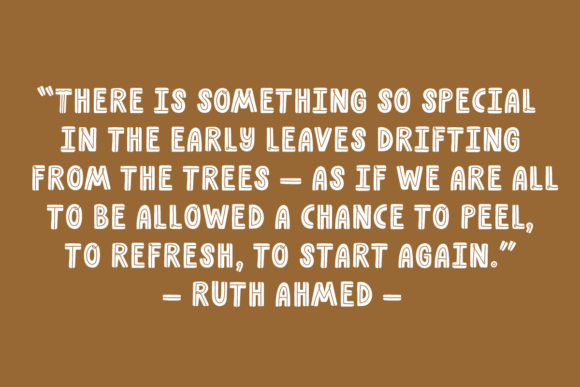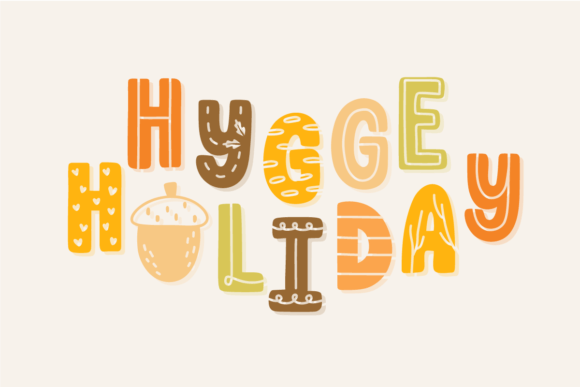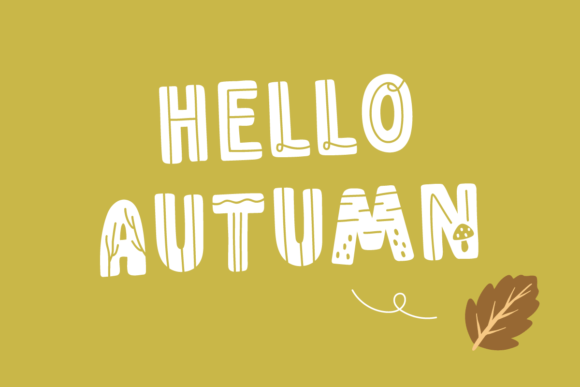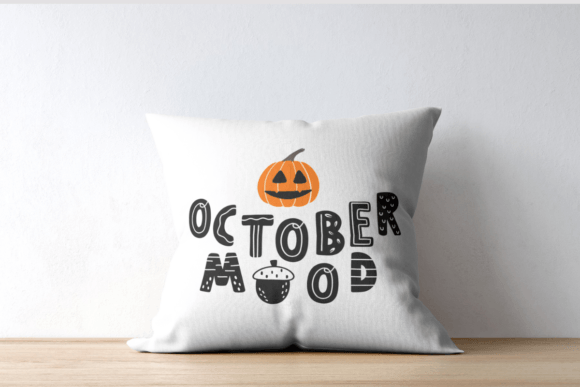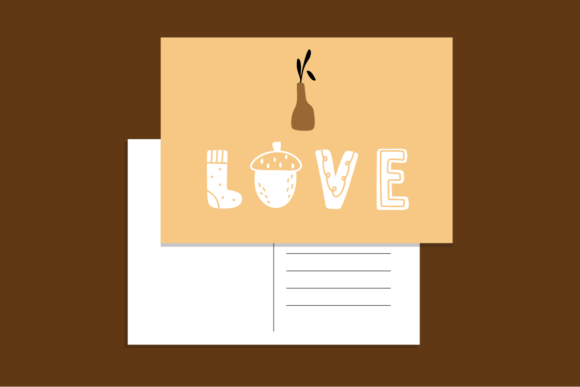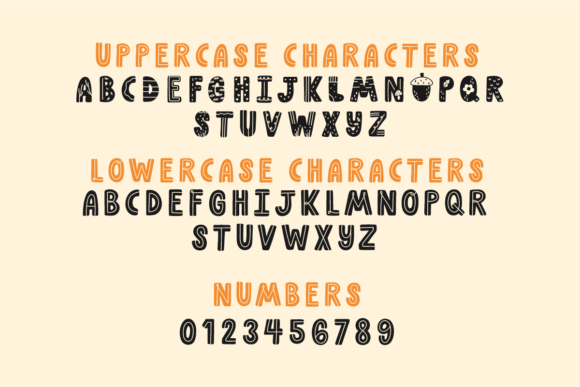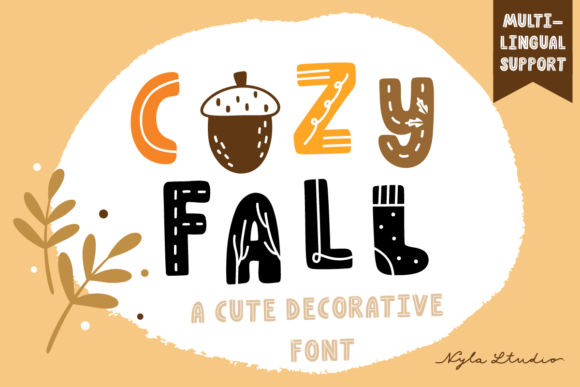
Cozy Fall Font: The Perfect Addition to Your Autumn and Winter Designs
As the leaves change colors and the air grows crisper, designers and crafters alike start thinking about incorporating the warmth and coziness of fall into their projects. One of the most effective ways to do this is through typography, and that’s where the Cozy Fall Font comes in. This adorable and playful decorative font is perfect for adding a touch of autumnal charm to your designs, from projects and shirts to retro designs, Christmas invitations, mugs, stickers, and more.
What Makes Cozy Fall Font So Special?
Cozy Fall Font is more than just a pretty font – it’s a versatile tool that can be used in a wide range of applications. Its cute and playful design makes it perfect for creating eye-catching posters, logos, and greeting cards that will stand out from the crowd. The font’s warm and inviting aesthetic also makes it ideal for packaging and illustration design, adding a touch of personality to any product or artwork.
Uses for Cozy Fall Font
So, what can you use Cozy Fall Font for? The possibilities are endless! Here are just a few ideas to get you started:
- Autumn projects: Add a touch of fall flair to your seasonal projects, from harvest-themed posters to cozy sweaters and hats.
- Shirts and apparel: Create eye-catching designs for t-shirts, hoodies, and other clothing items that will keep your customers warm and stylish all season long.
- Retro designs: Cozy Fall Font’s playful aesthetic makes it perfect for creating retro-inspired designs that will transport your customers back to a bygone era.
- Christmas invitations: Get into the holiday spirit with custom Christmas invitations that feature Cozy Fall Font’s festive design.
- Mugs and drinkware: Add a touch of personality to mugs, water bottles, and other drinkware with Cozy Fall Font’s cute and playful design.
- Stickers and decals: Create custom stickers and decals that feature Cozy Fall Font’s adorable design, perfect for laptops, water bottles, and more.
- Playful quotes: Use Cozy Fall Font to create inspiring and playful quotes that will add a touch of whimsy to any design.
- Posters and signage: Create eye-catching posters and signs that will grab attention and add a touch of autumnal charm to any room.
- Logos and branding: Use Cozy Fall Font to create custom logos and branding materials that will help your business stand out from the crowd.
- Greeting cards and stationery: Add a touch of personality to your greeting cards and stationery with Cozy Fall Font’s cute and playful design.
- Packaging design: Use Cozy Fall Font to create custom packaging that will make your products stand out on store shelves.
- Illustration and art: Add a touch of whimsy to your illustrations and artwork with Cozy Fall Font’s adorable design.
Why Choose Cozy Fall Font?
So, why choose Cozy Fall Font over other fonts on the market? Here are just a few reasons:
- Unique design: Cozy Fall Font’s cute and playful design is unlike anything else on the market, making it the perfect way to add a touch of personality to your designs.
- Versatility: Cozy Fall Font can be used in a wide range of applications, from posters and shirts to packaging and illustration design.
- High-quality: Cozy Fall Font is a high-quality font that is designed to look great in any design, whether you’re working on a small project or a large-scale design.
If you’re looking for a font that will add a touch of autumnal charm to your designs, look no further than Cozy Fall Font. This adorable and playful decorative font is perfect for designers and crafters who want to create eye-catching projects that will stand out from the crowd. With its versatile design and wide range of uses, Cozy Fall Font is the perfect addition to any design toolkit.